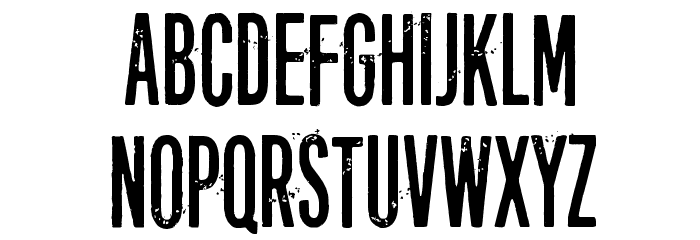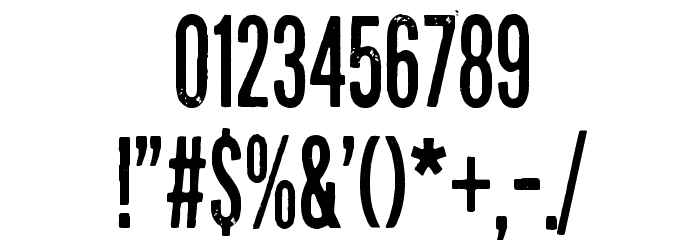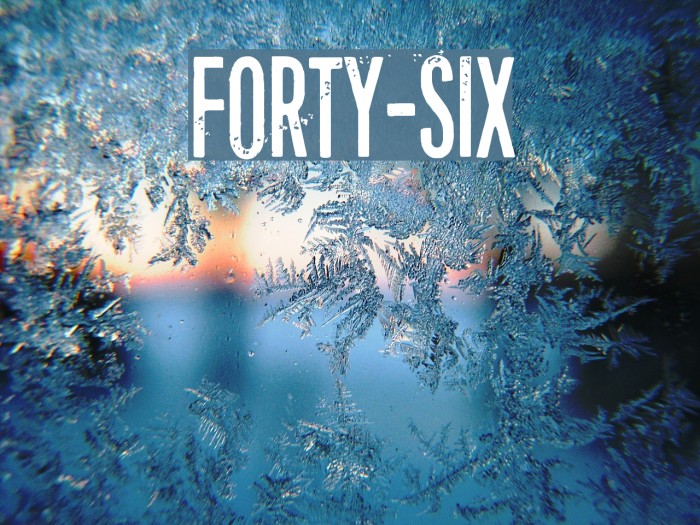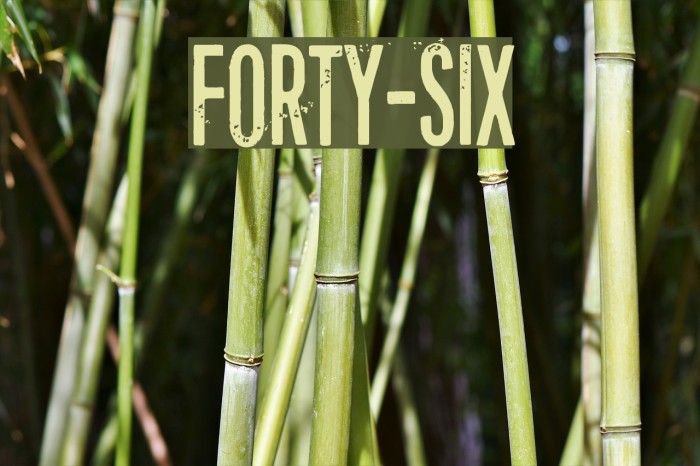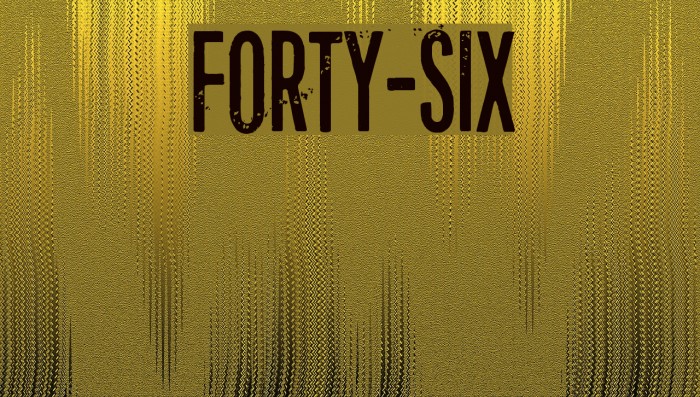
Forty-six Font
This font features a bold, distressed style with a vintage, grunge aesthetic. The uppercase and lowercase letters are uniformly bold, with a slightly condensed width that gives a compact appearance. The characters have a rough texture, simulating a worn or weathered look, which adds to its rustic charm. The numbers and special characters maintain this distressed style, ensuring consistency across all glyphs. The font's high contrast between the thick strokes and the distressed areas creates a dynamic visual impact, making it suitable for eye-catching designs.
A bold, distressed font with a vintage, grunge aesthetic.
- Proposed Projects: Ideal for posters, album covers, branding for vintage-themed products, or any design requiring a bold, rustic look.
- Overall Style: Vintage